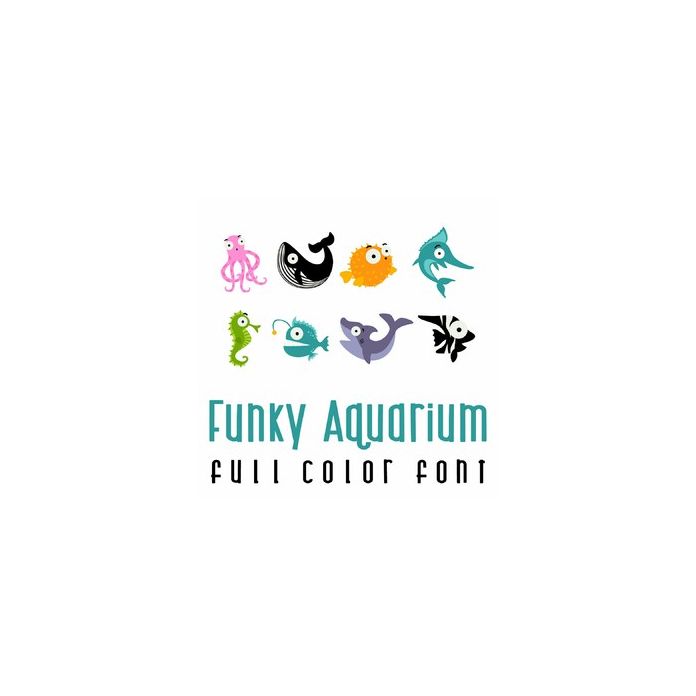
This adorable full-color doodlebat font features 26 fun and funky sea life. Perfect for cards, crafts, gifts, decor, scrapbook pages, planner stickers, and more!